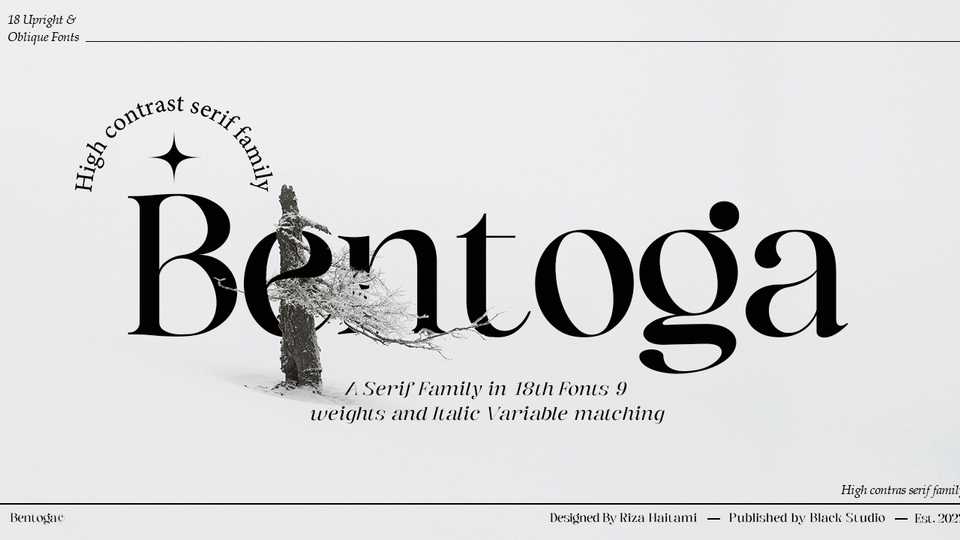
Download Bentoga font, a serif typeface that is feminine, adaptable, aesthetically contemporary. Bentoga font creates limitless variety for your design needs.